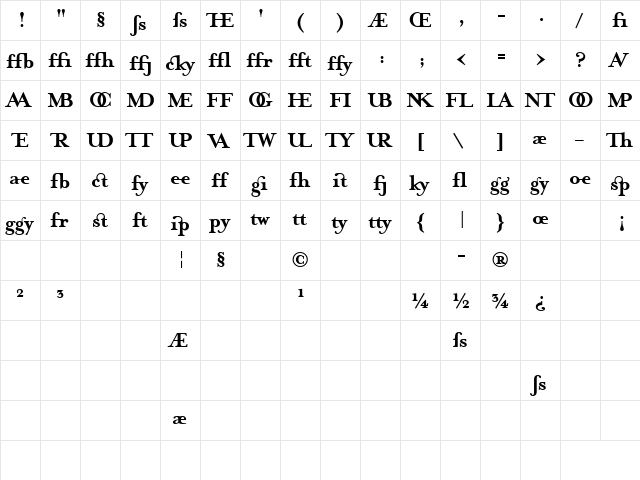
MrsEavesJustLig Bold Font Preview
MrsEavesJustLig Bold
MrsEavesJustLig Bold Font Details
Design Context for MrsEavesJustLig Typeface
MrsEavesJustLig takes a measured approach to typography — its balanced proportions and neutral character make it a reliable workhorse for both digital and print work. The heavy weight commands attention and anchors typographic hierarchies.